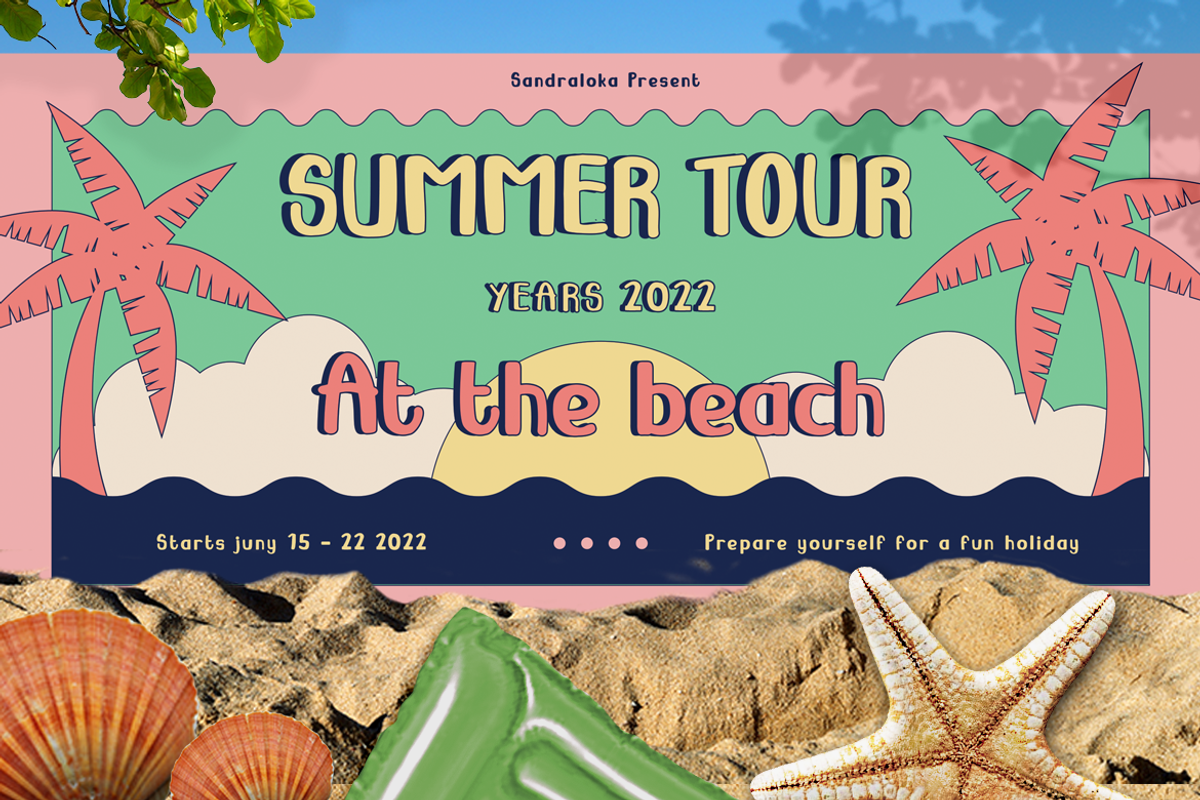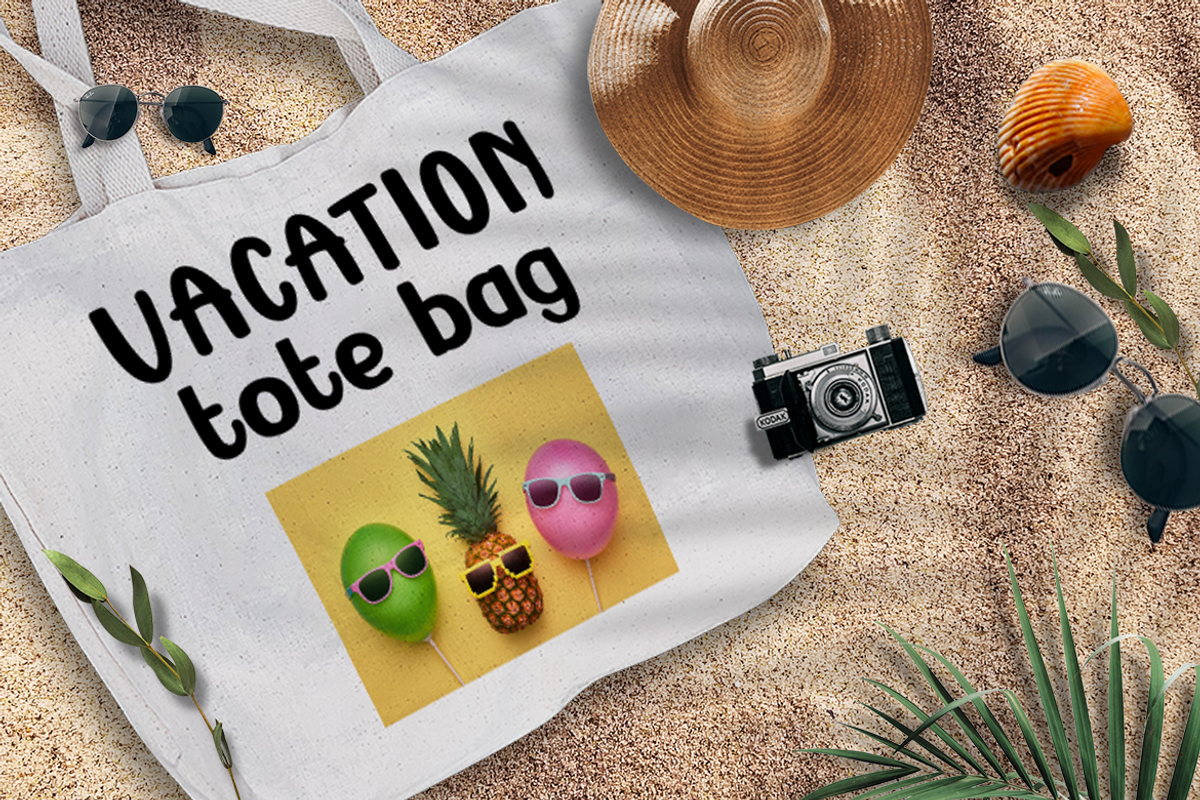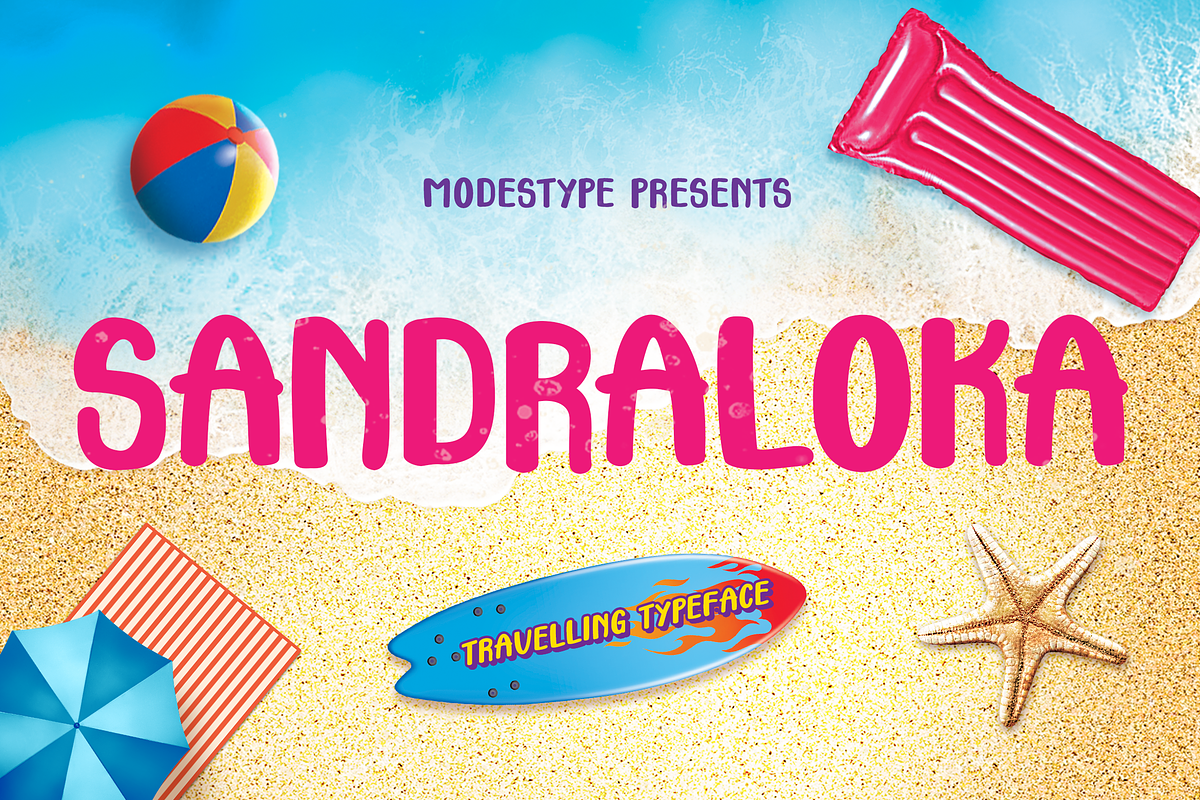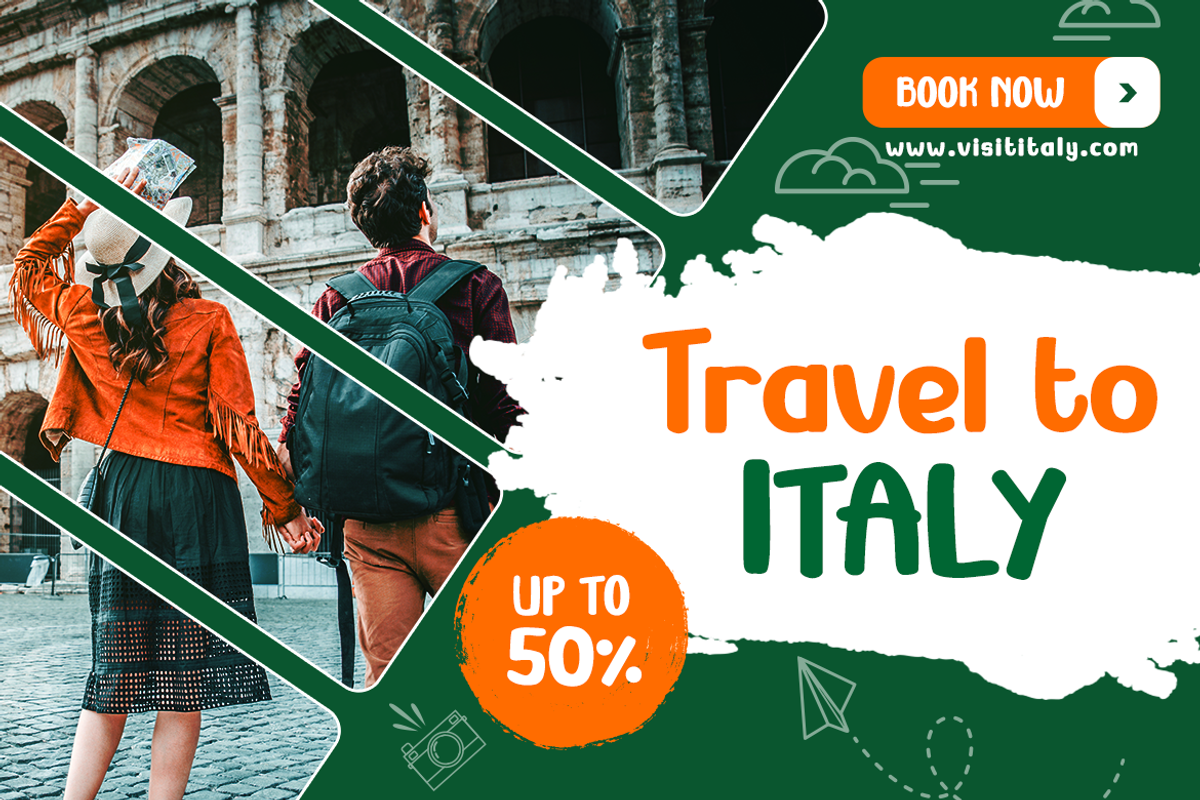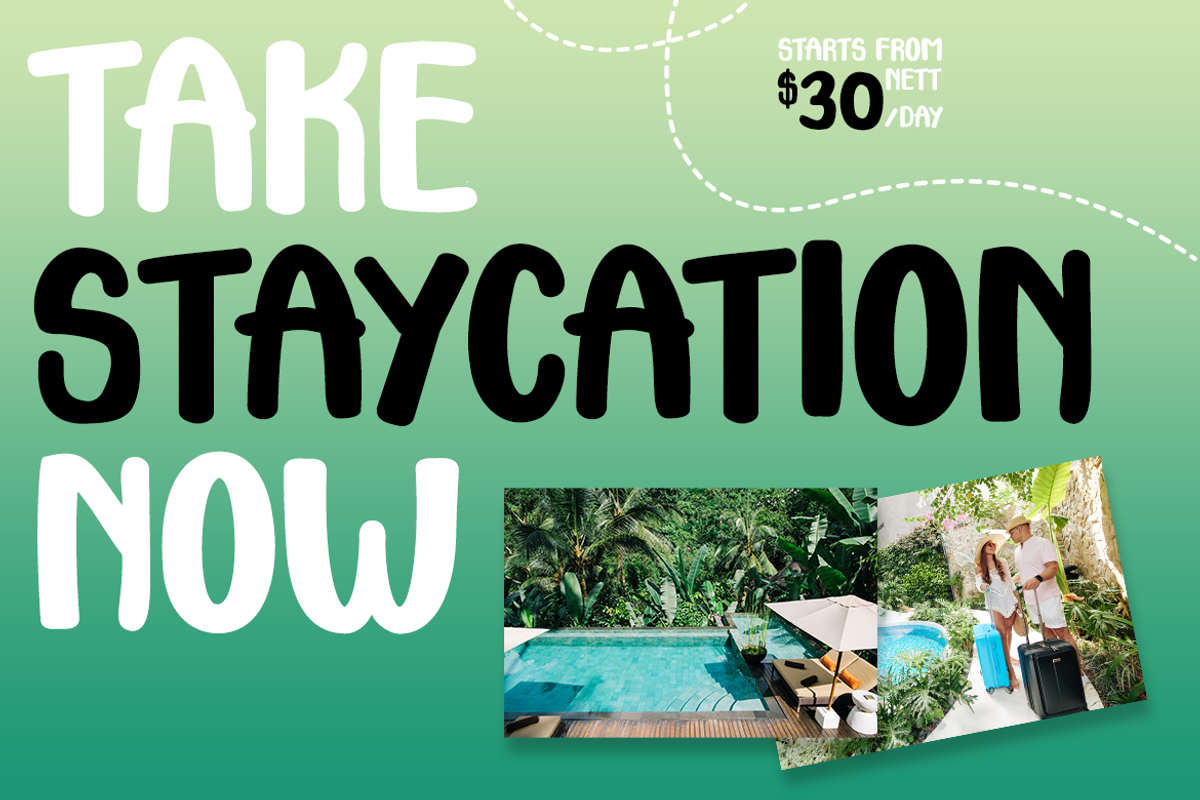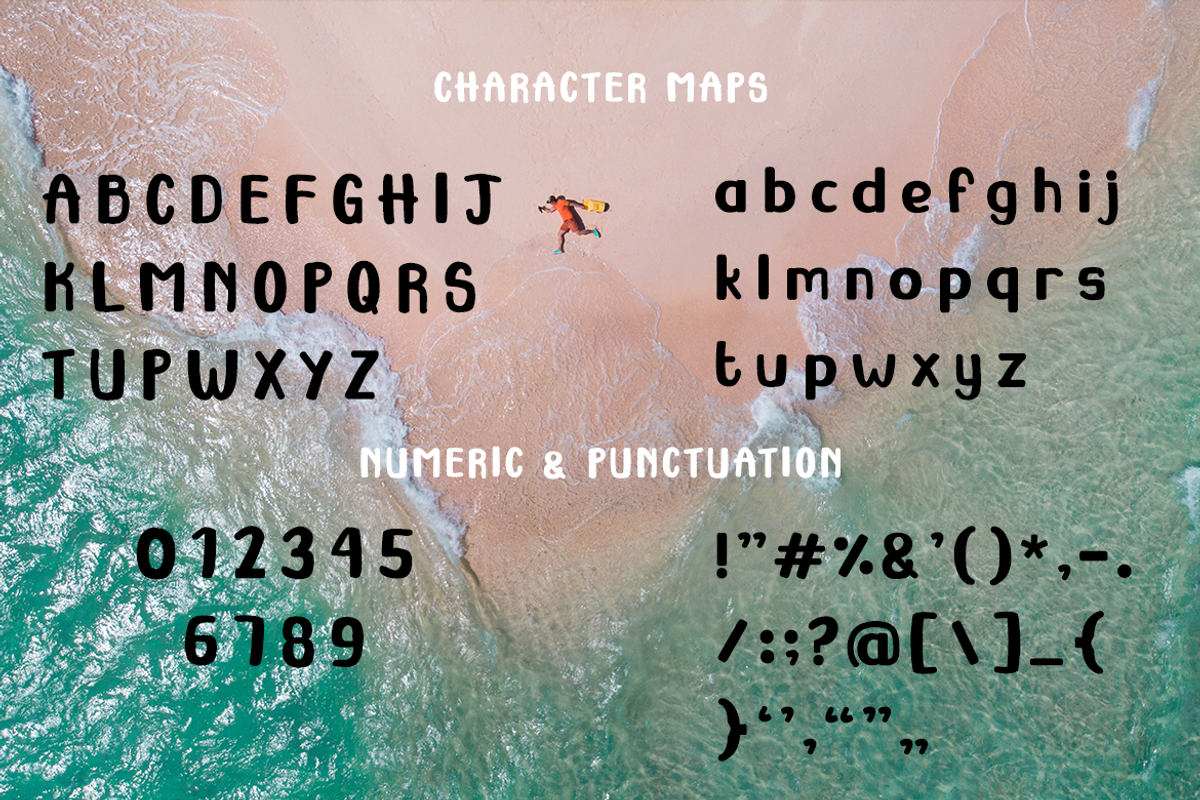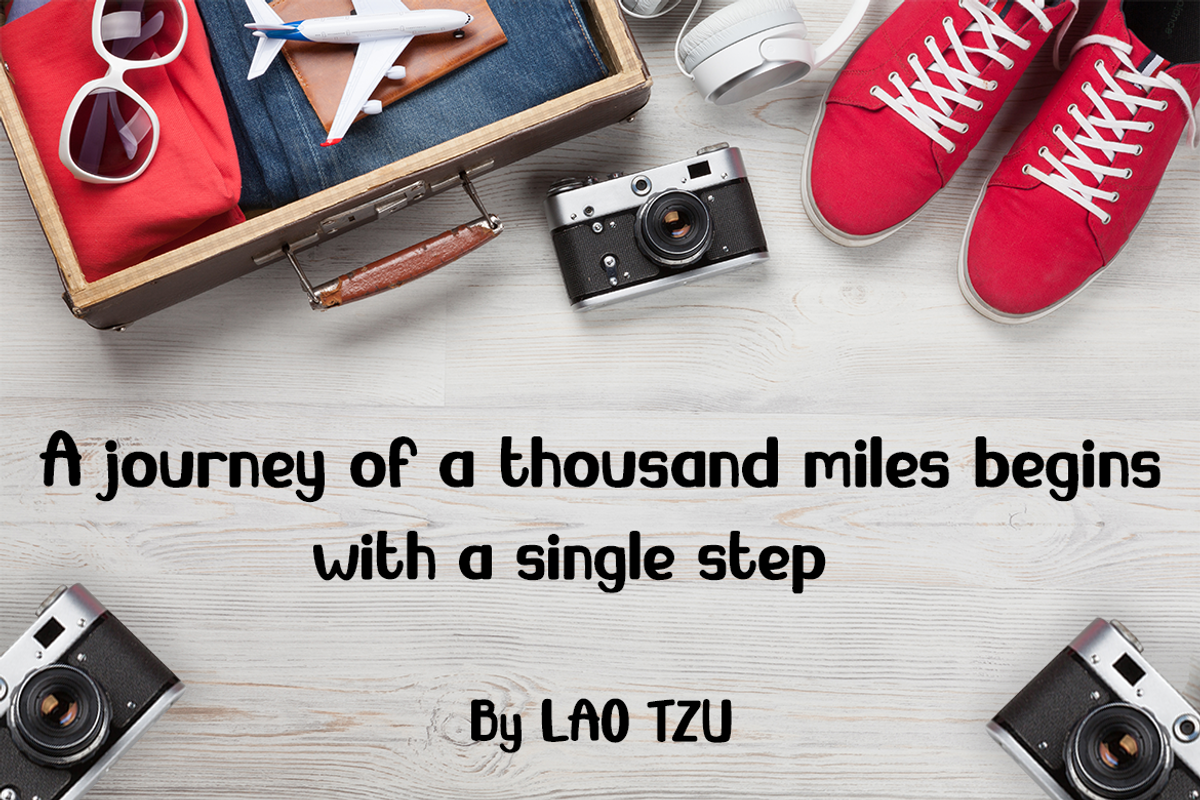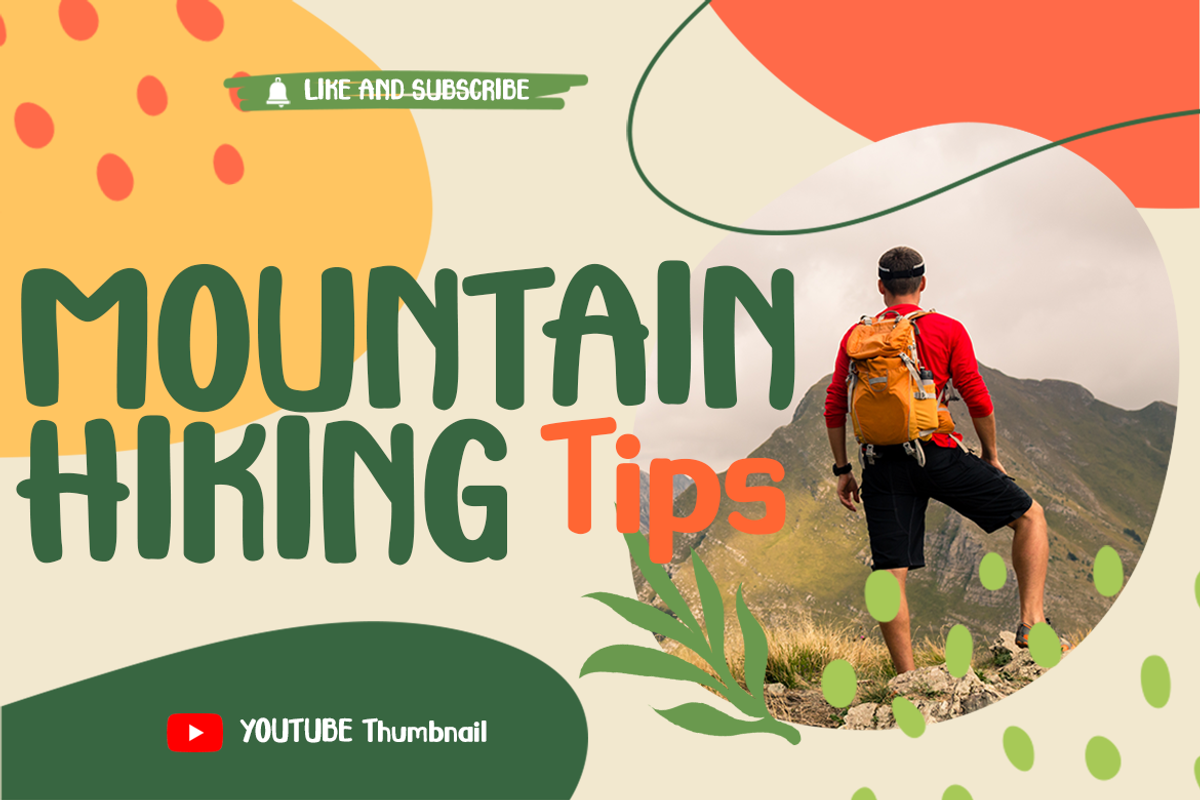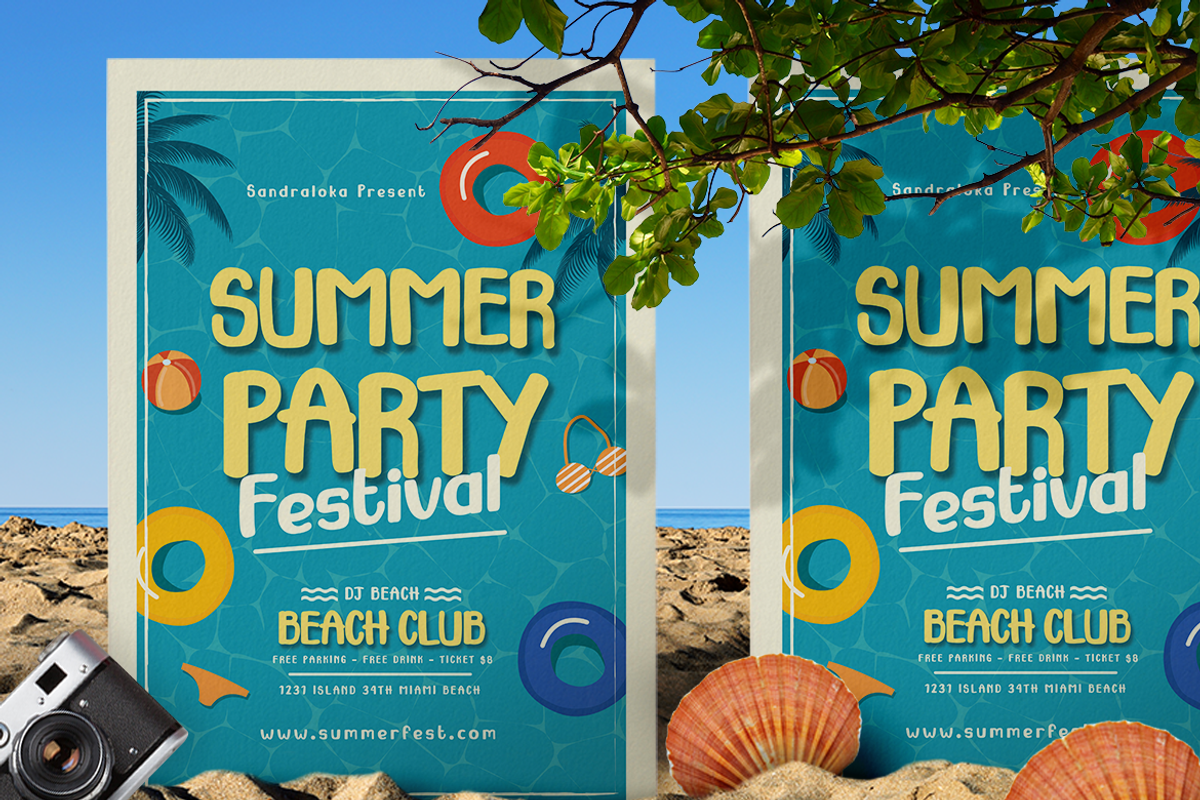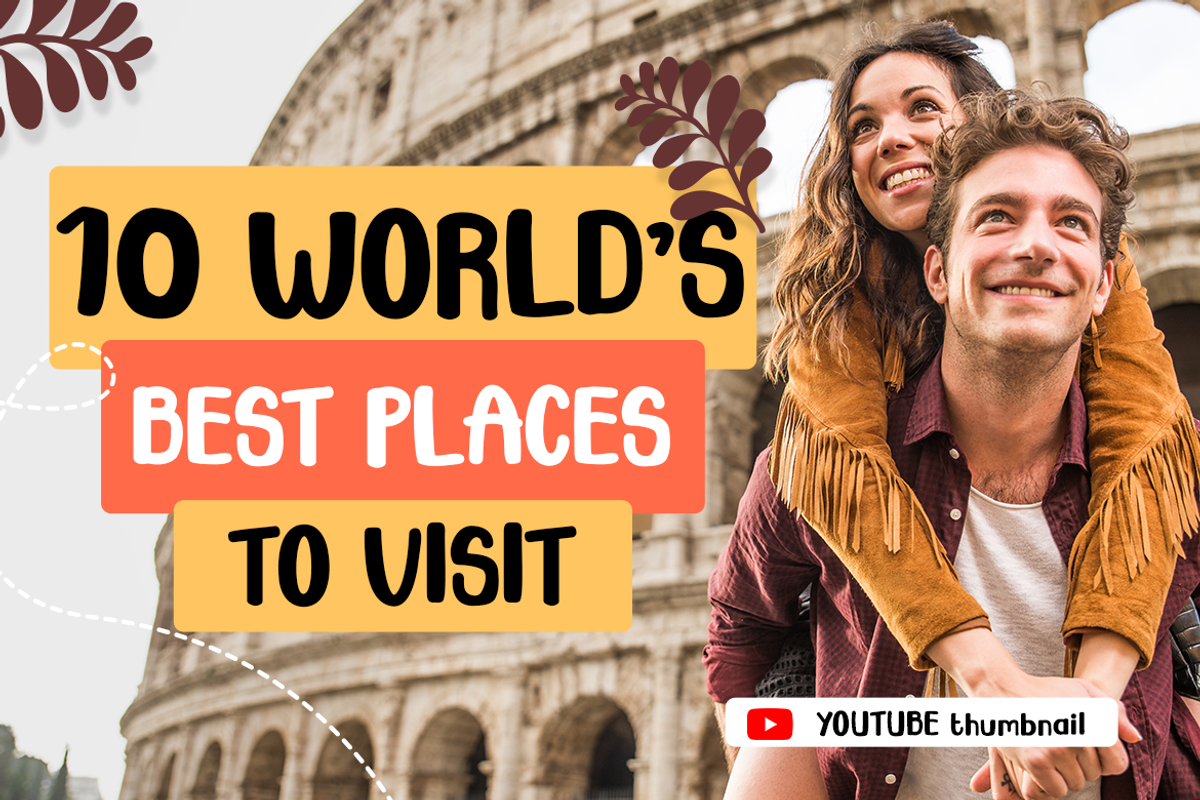
Sandraloka - Traveling Kids Font
Sandraloka - Travelling Kids Font
Kids do need to travel, it expand their view pf what is happening out of their house. And Sandraloka is here to be with them in every step of the way, collecting memories, and frame it in their heart.
Suit perfectly for travelling books market, online games, exploration event poster, school supplies font, poster, movie title, youtube covers, youtube thumbnails, social media page covers and so on...